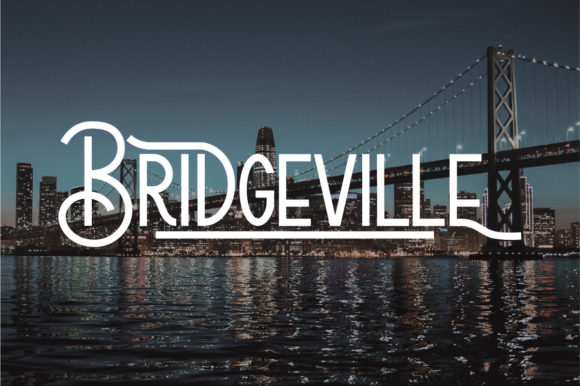
Unleash the Enchanting Bridgeville Font - A Stroke of Brilliance for Your Creative Endeavors!
Adorn your designs with the captivating Bridgeville font, a display masterpiece crafted by the skilled artisans at CalligraphyFonts. This font is a true gem, meticulously designed to ignite your imagination and elevate your projects to new heights.
With its PUA encoding, Bridgeville grants you effortless access to a world of glyphs and swashes, empowering you to weave intricate and mesmerizing compositions effortlessly. Unleash your creativity and let the Bridgeville font guide you towards breathtaking designs that resonate with your unique style.
Step into a realm of boundless possibilities, where words dance with grace and elegance. Whether you're crafting logos that command attention, weaving enchanting invitations, or adorning your social media posts with a touch of allure, the Bridgeville font is your steadfast companion, transforming the ordinary into the extraordinary.
Discover a font that embodies both strength and fluidity, boldness and charm. The Bridgeville font dances across your screen, captivating your audience with its captivating presence. Its unique strokes ignite a sense of wonder, inviting them to delve deeper into your creations and explore the depths of your imagination.
Immerse yourself in a symphony of creativity as you witness the Bridgeville font breathe life into your designs. Its versatility knows no bounds, seamlessly adapting to a myriad of projects, from branding and marketing to web design and social media graphics.
With Bridgeville, you'll unlock a font that speaks to the heart, evoking emotions and inspiring connections. Its exquisite design captivates the senses, leaving a lasting impression on your audience.
Embrace the Bridgeville font today and embark on a creative journey like never before. Let its captivating strokes ignite your imagination and transport your designs to new heights of beauty and elegance.